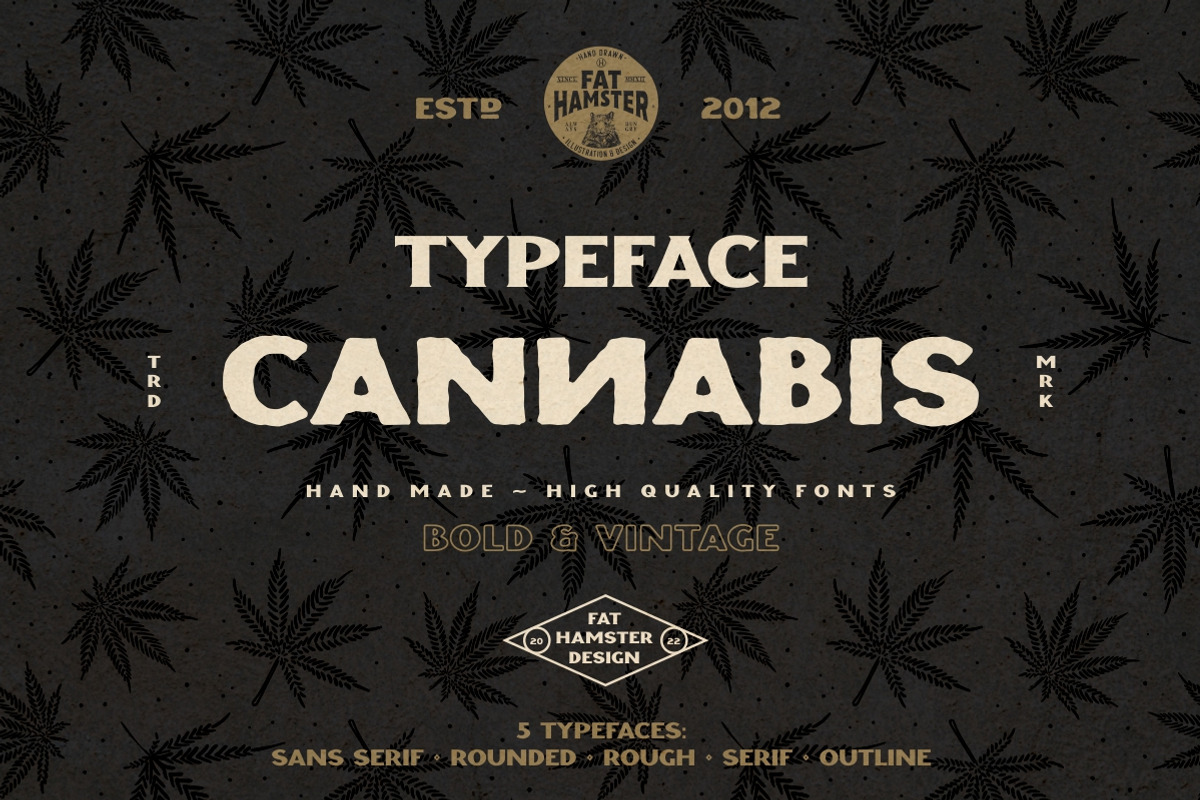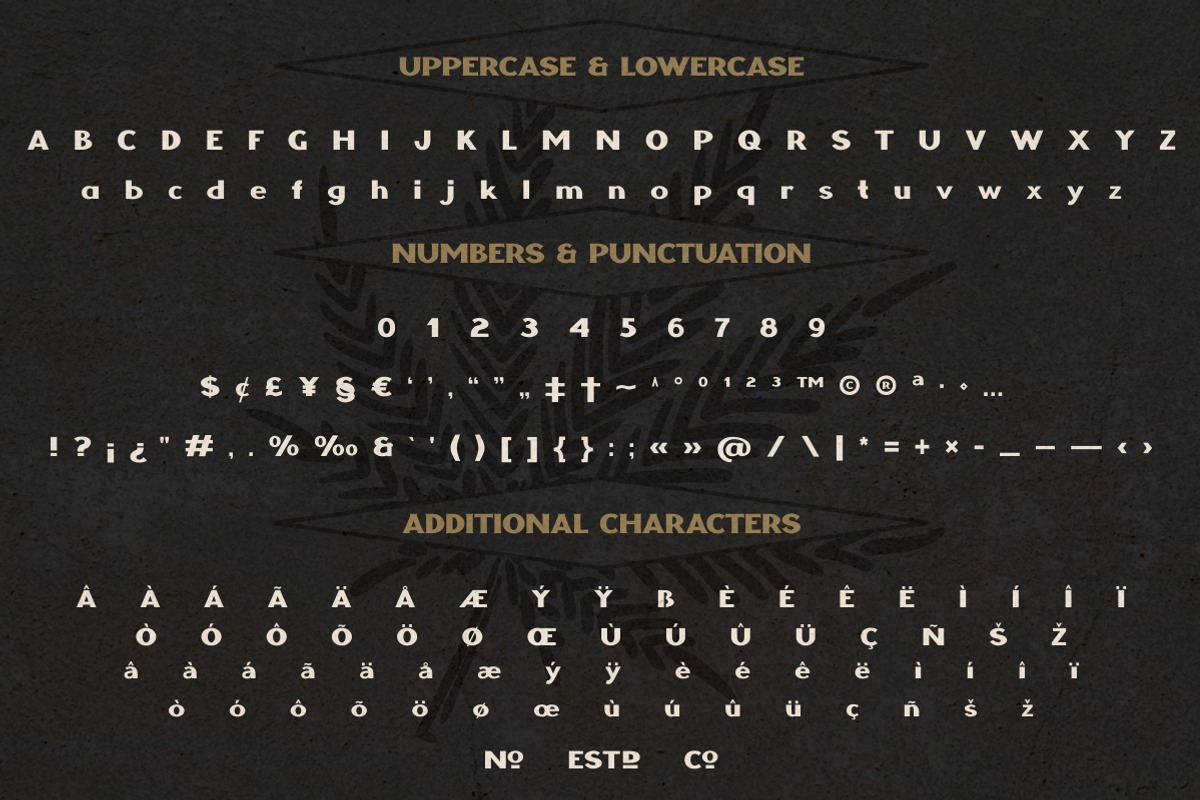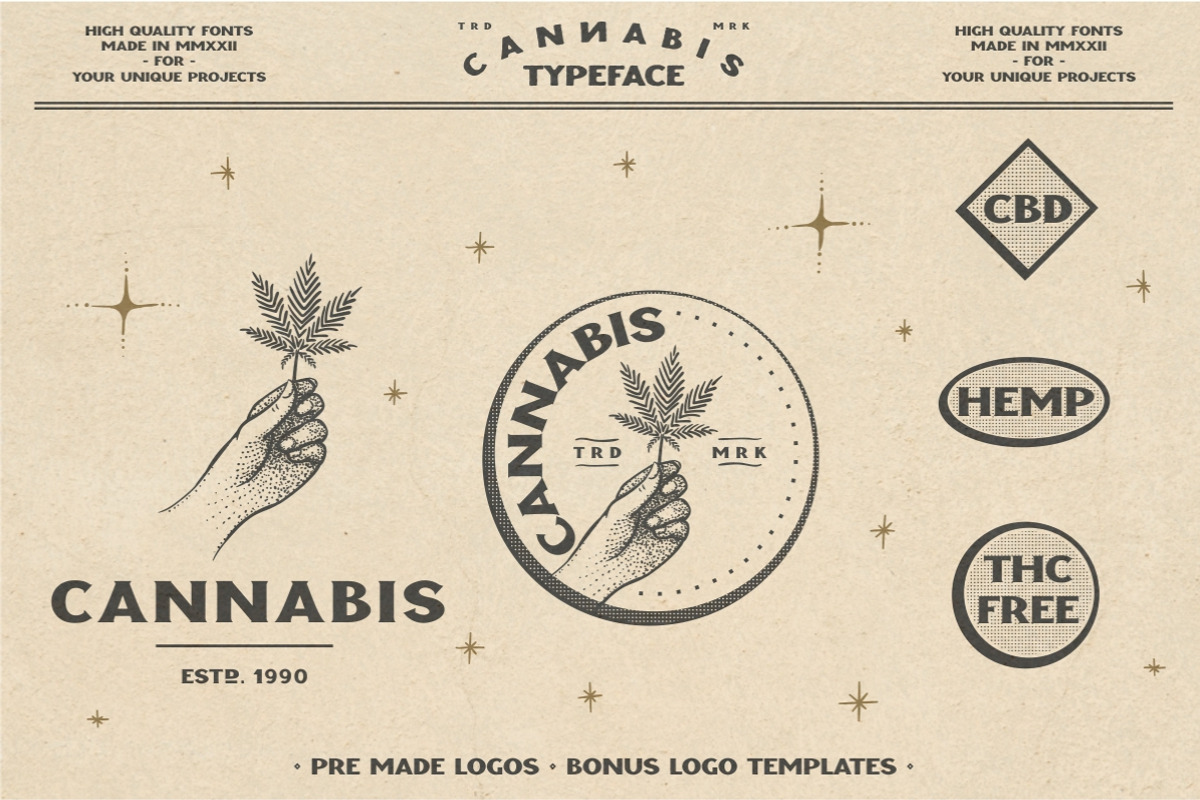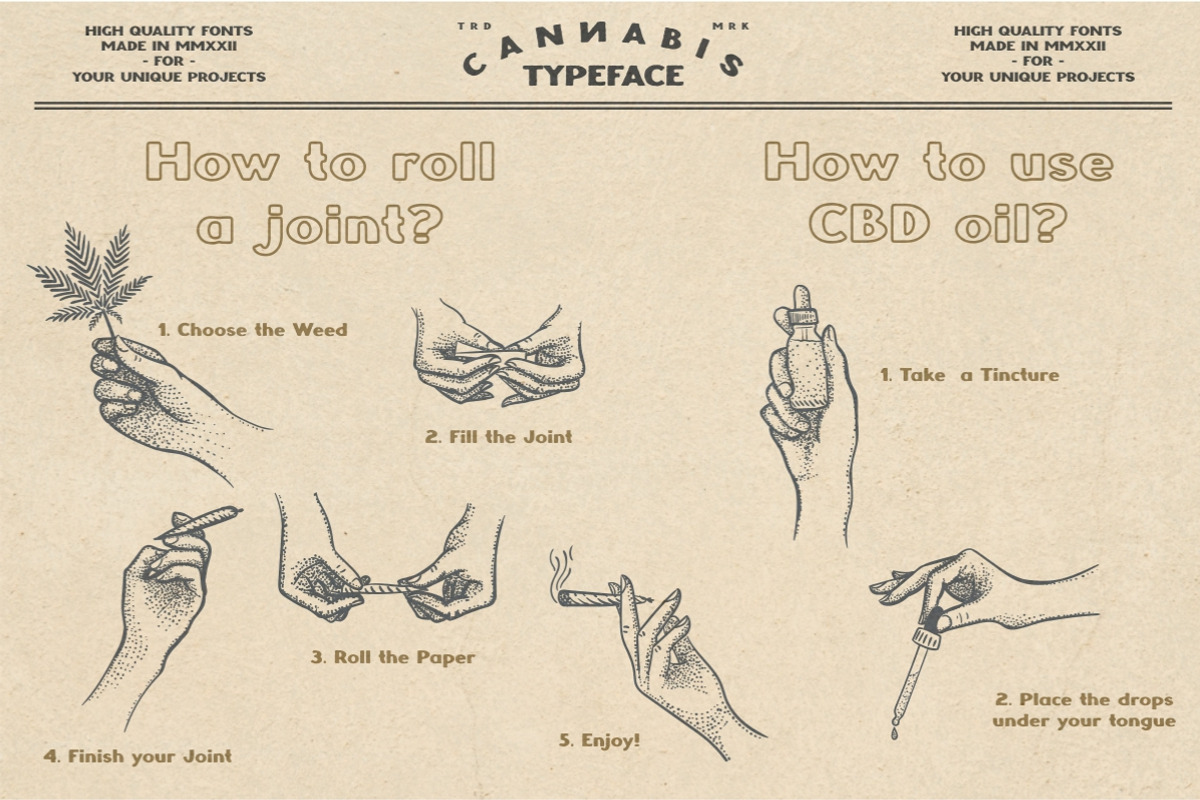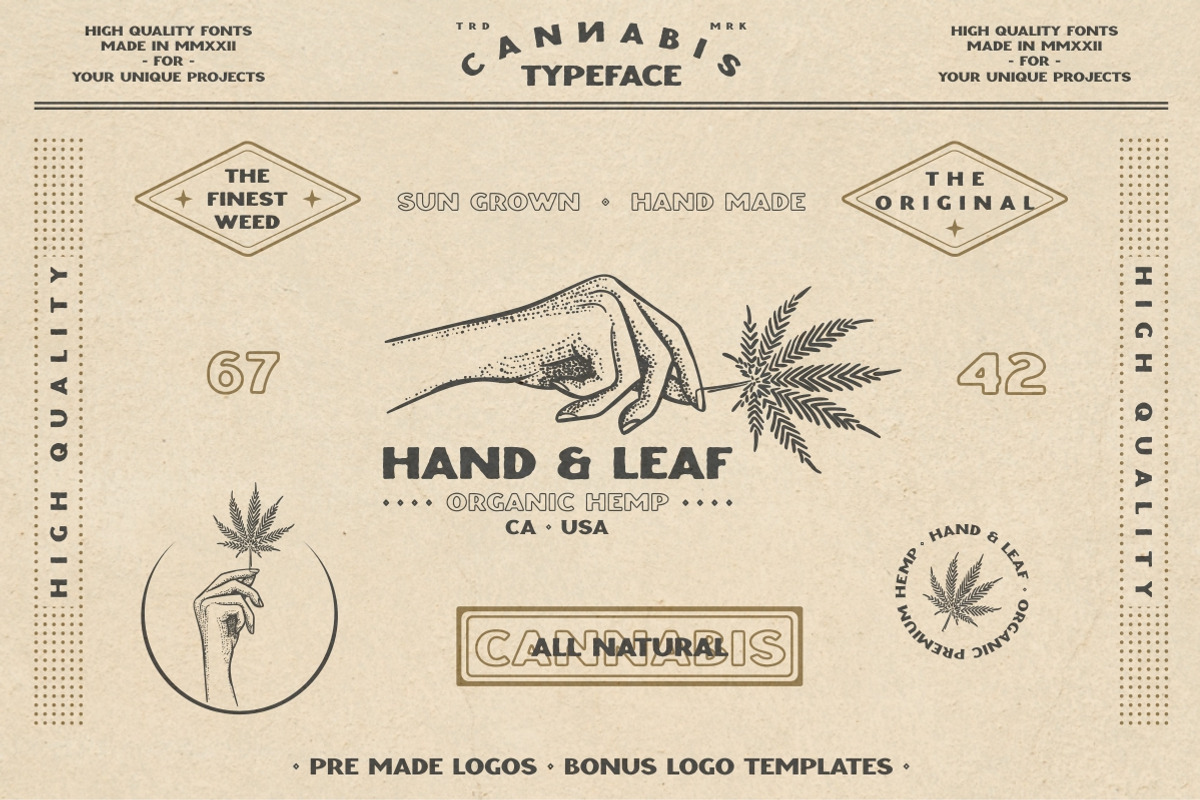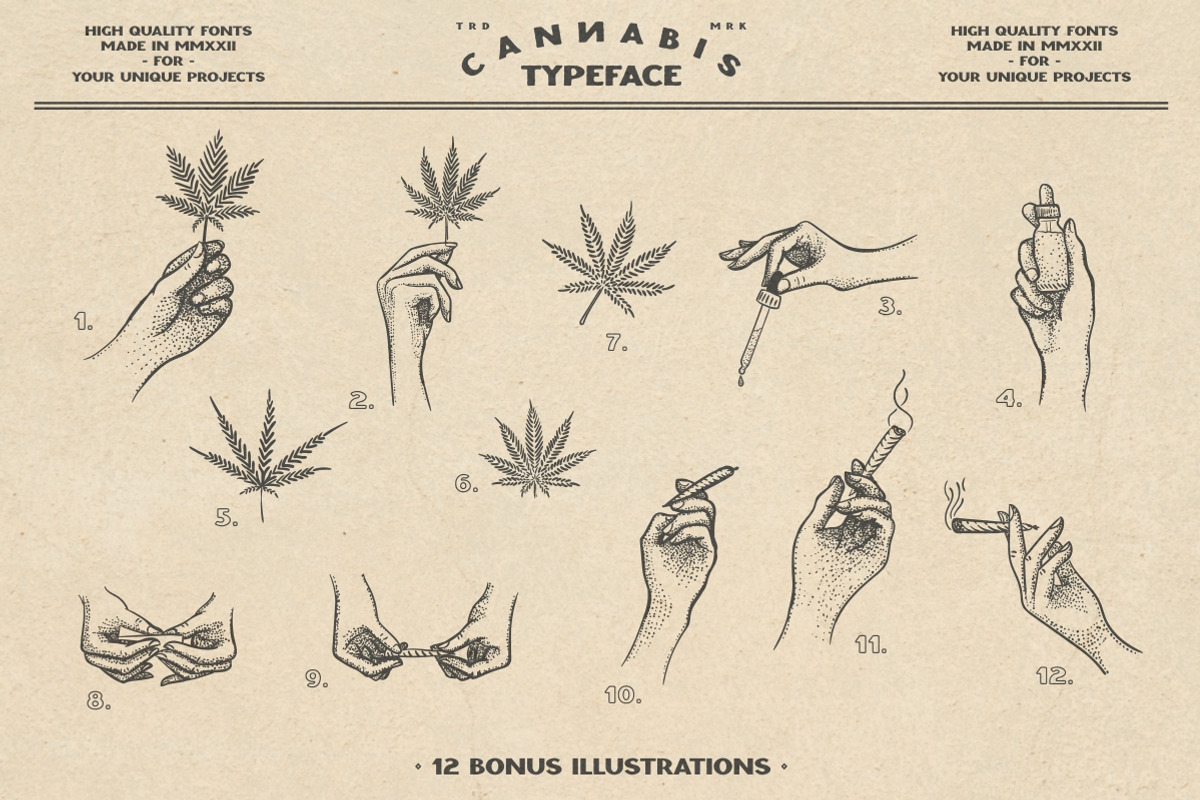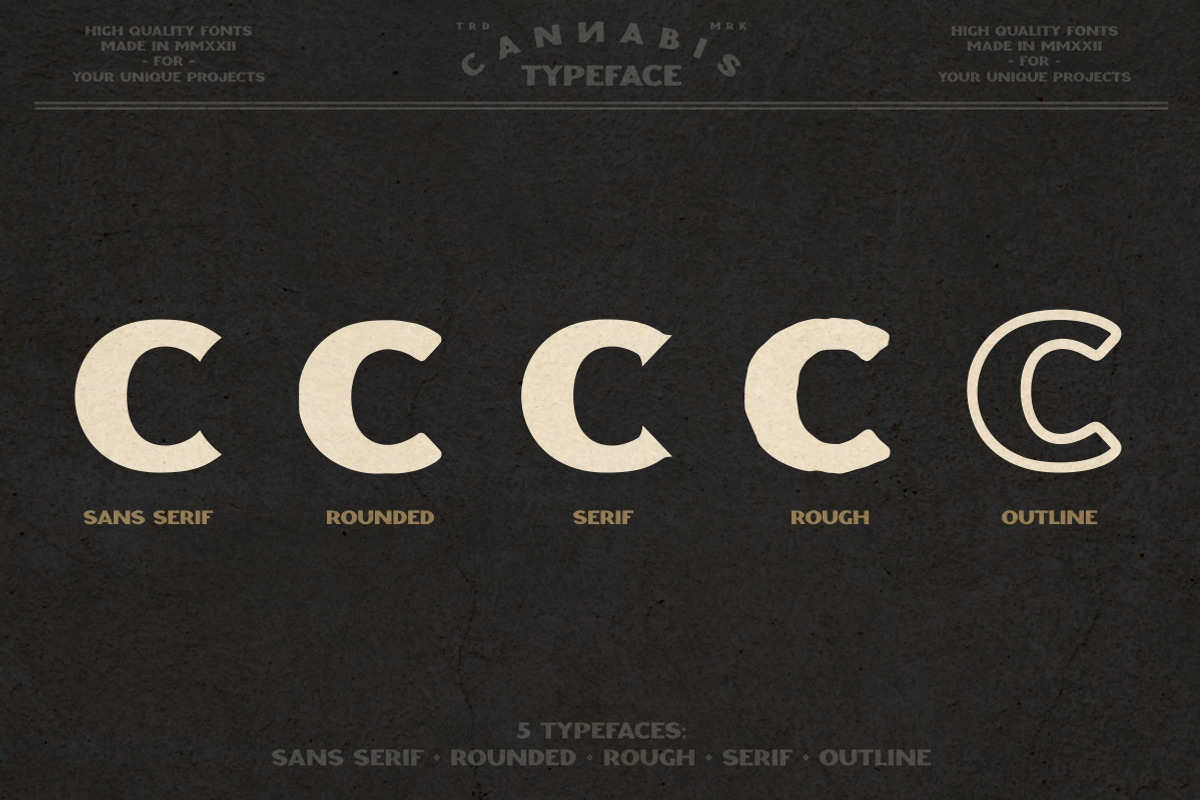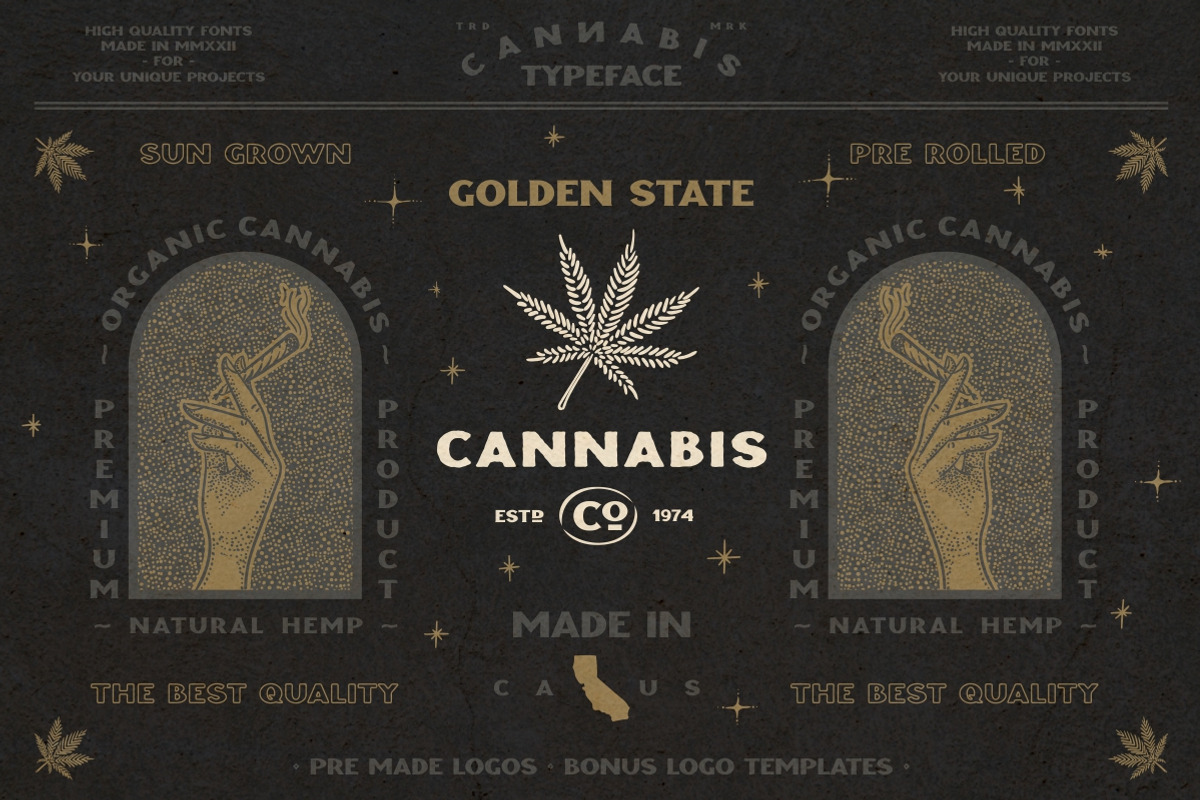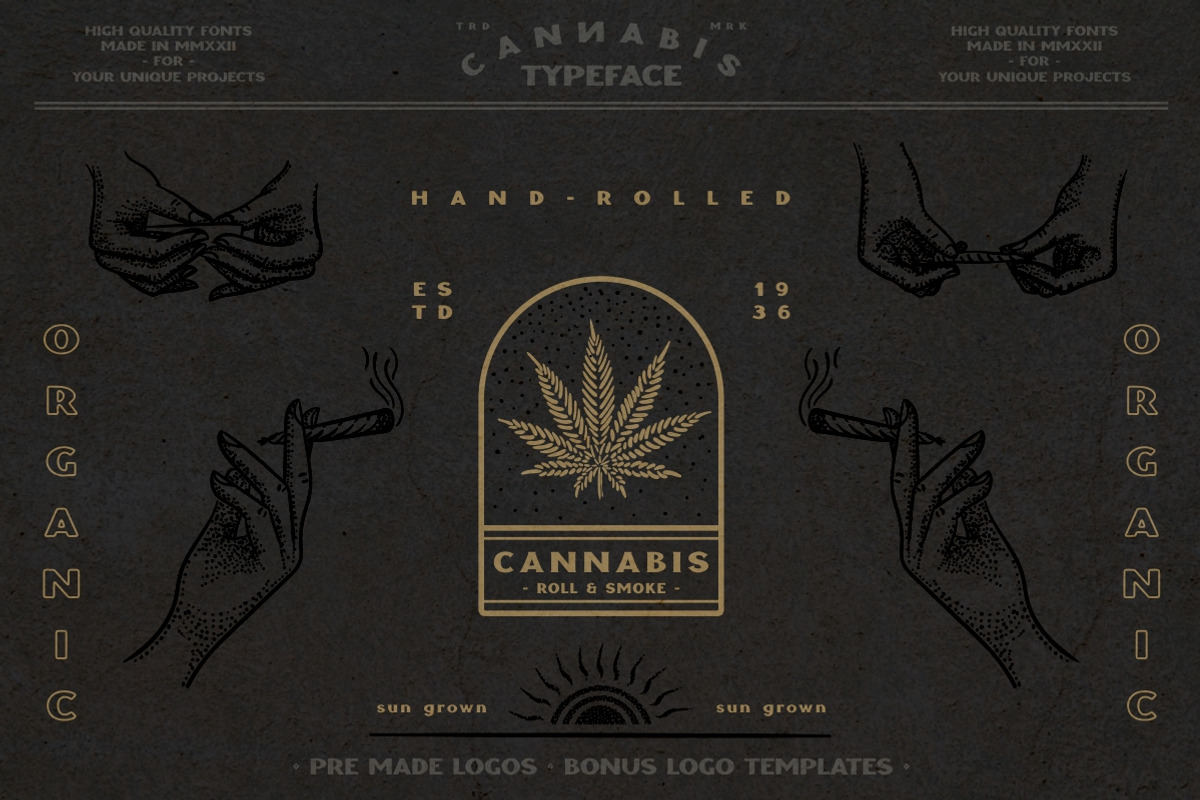
CANNABIS vintage font
CANNABIS vintage typeface, 5 font styles: serif, sans serif, rough, outline, round
Bonus:
CANNABIS is a vintage display typeface, it has an old American feel. CANNABIS typeface includes 5 font styles: serif, sans serif, rough, outline, round. CANNABIS font with bonus cannabis leaf, hemp, CBD, pre-roll, joint illustrations are great for CBD company logo design; label for cannabis products and CBD packaging design; badges, clothing and t-shirts; posters and headings; distillery and brewery branding design; spirits label design (such as rum, gin, whiskey, bourbon, vodka, tequila, mezcal, beer); coffee and tea; supplements and cosmetics design and much much more.